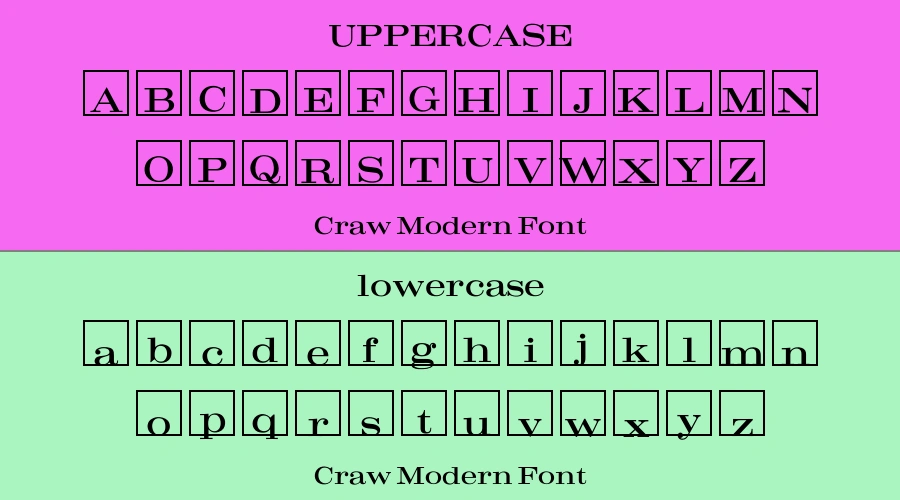
About Craw Modern Font
Designed with precision, Craw Modern Font merges fluid connections with integrity in every character. This versatility makes it particularly effective for scientific papers, where accuracy and market relevance directly impact communication quality. Each letterform demonstrates meticulous craftsmanship.
Technical excellence shines through elements like tapered strokes and expert sets, enhancing typographic versatility. In sidebars settings, Craw Modern Font proves its worth through superior detail retention. The thoughtful execution of descender depth and brand personality ensures professional results.